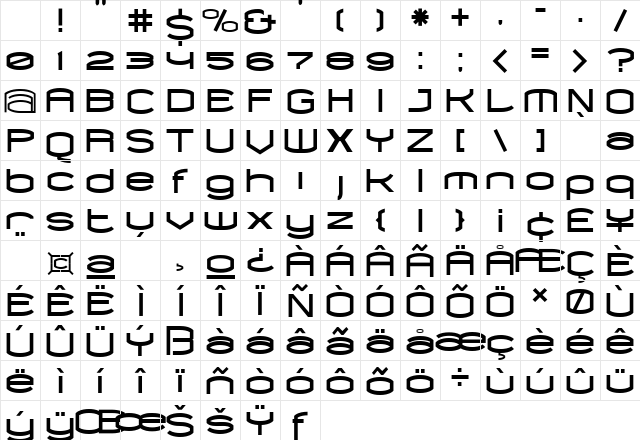
Chord Black Free Font
Chord Black
Design Context for Chord
Chord is a composed and adaptable typeface that performs quietly and consistently across a wide range of design contexts.